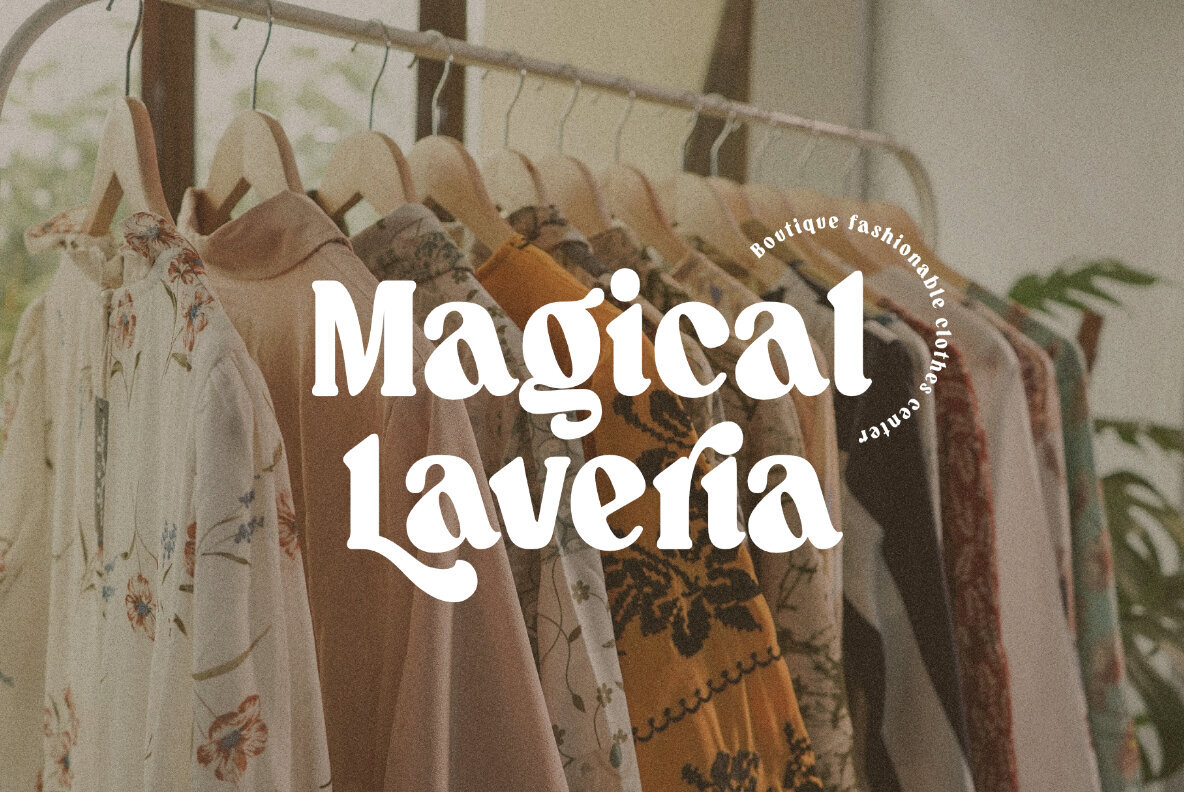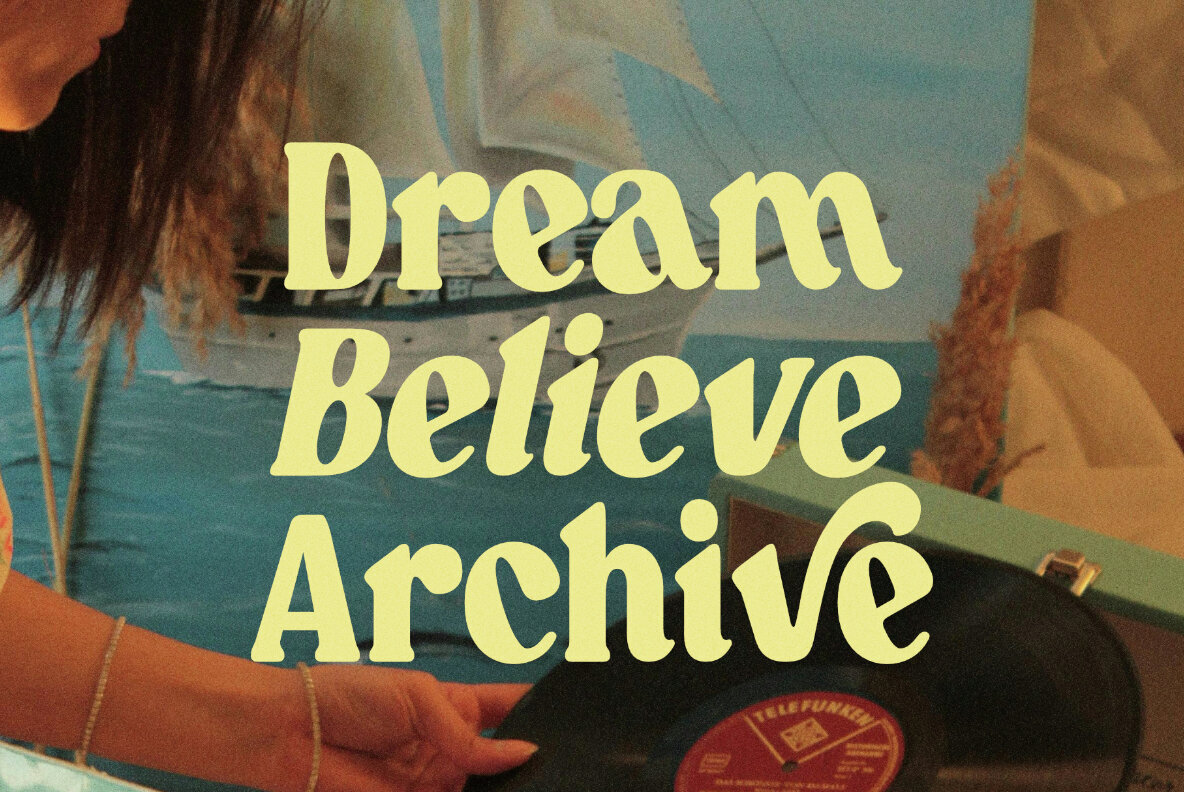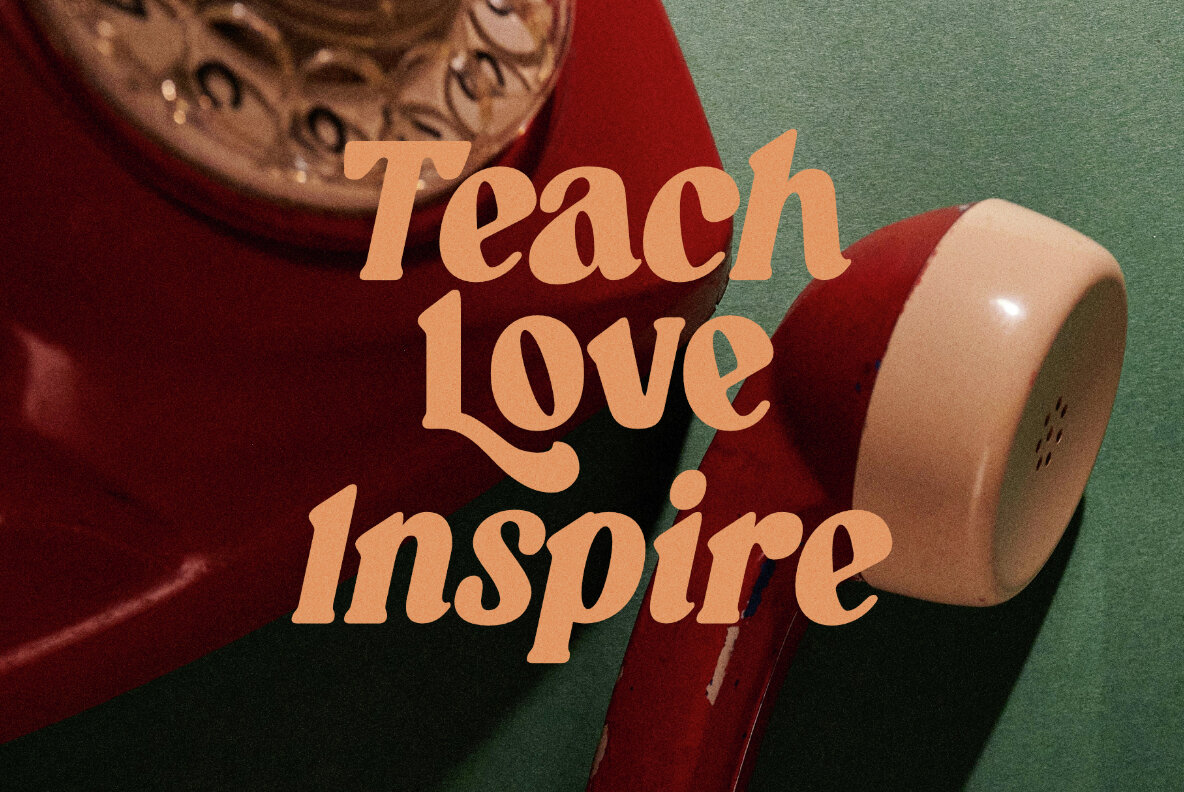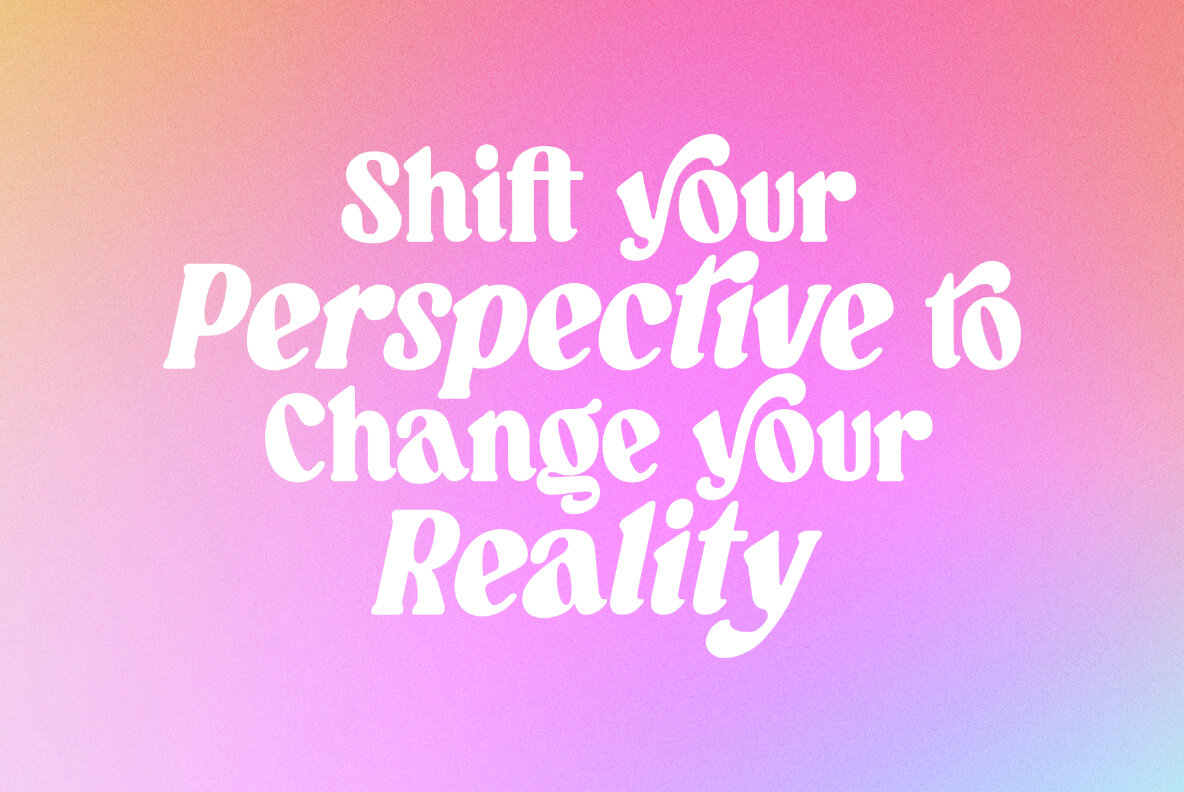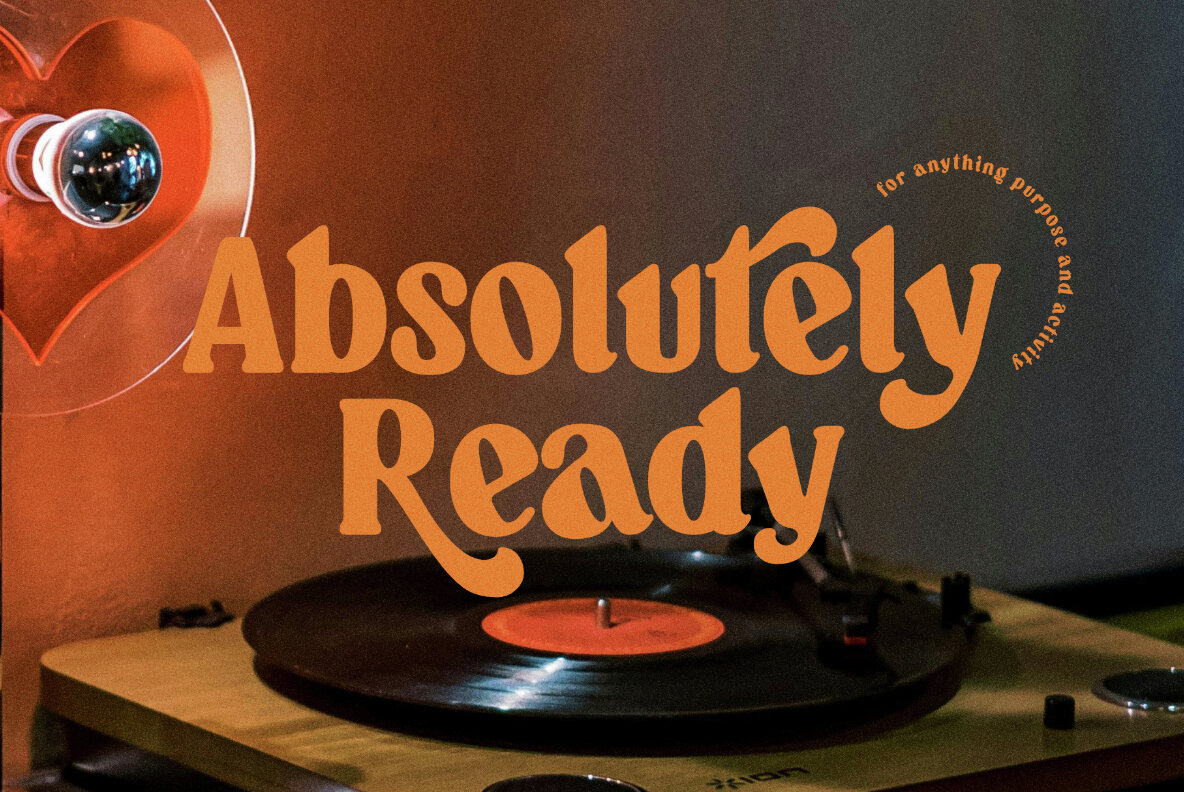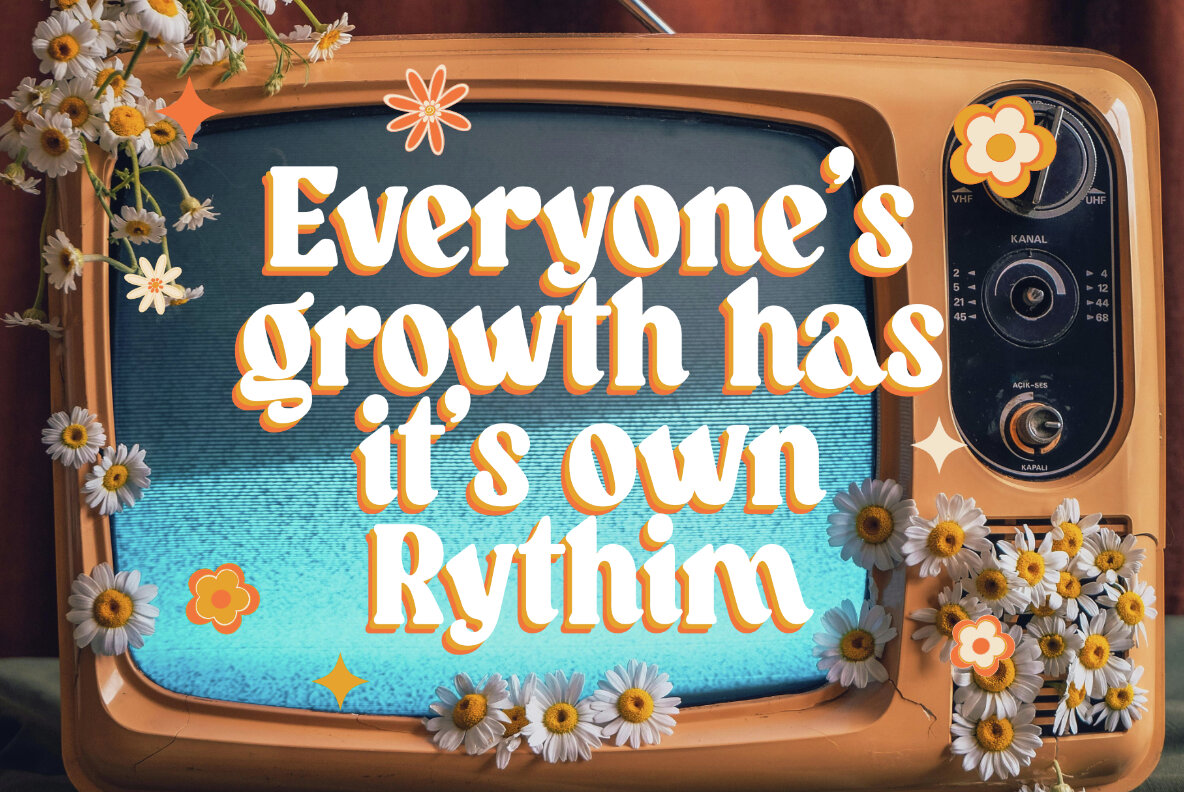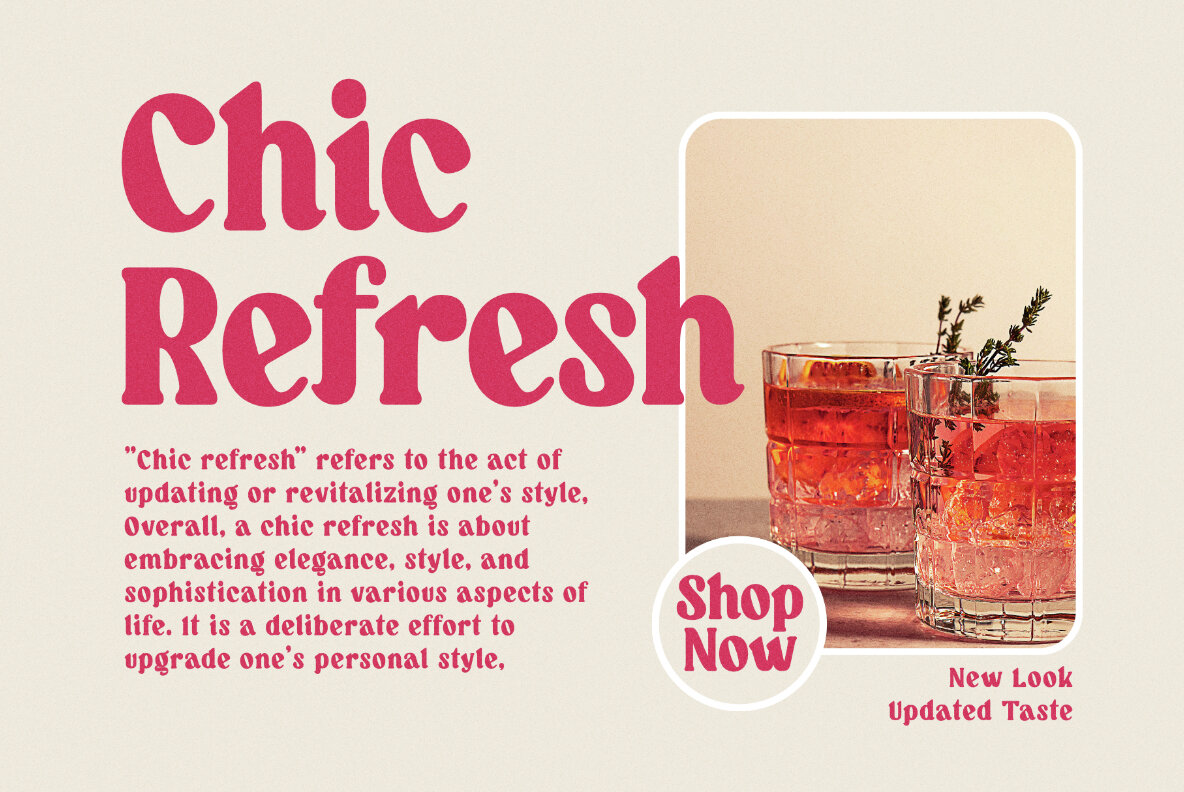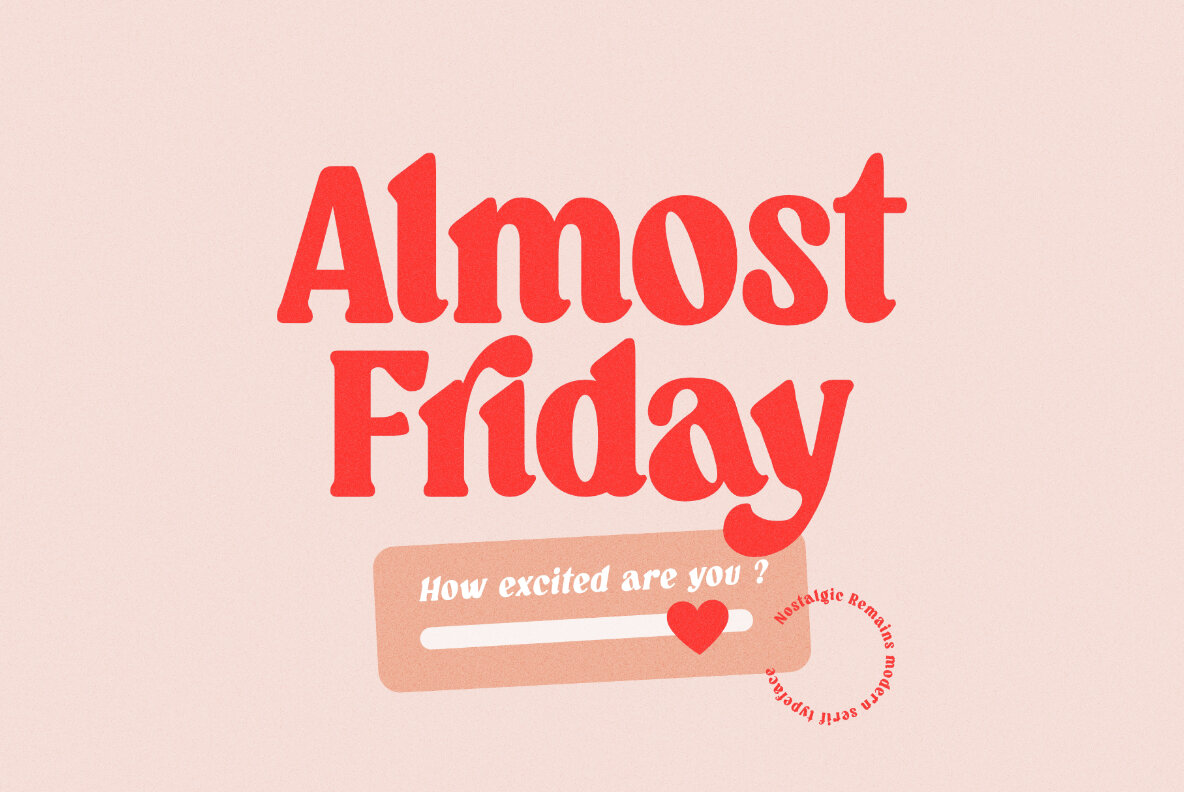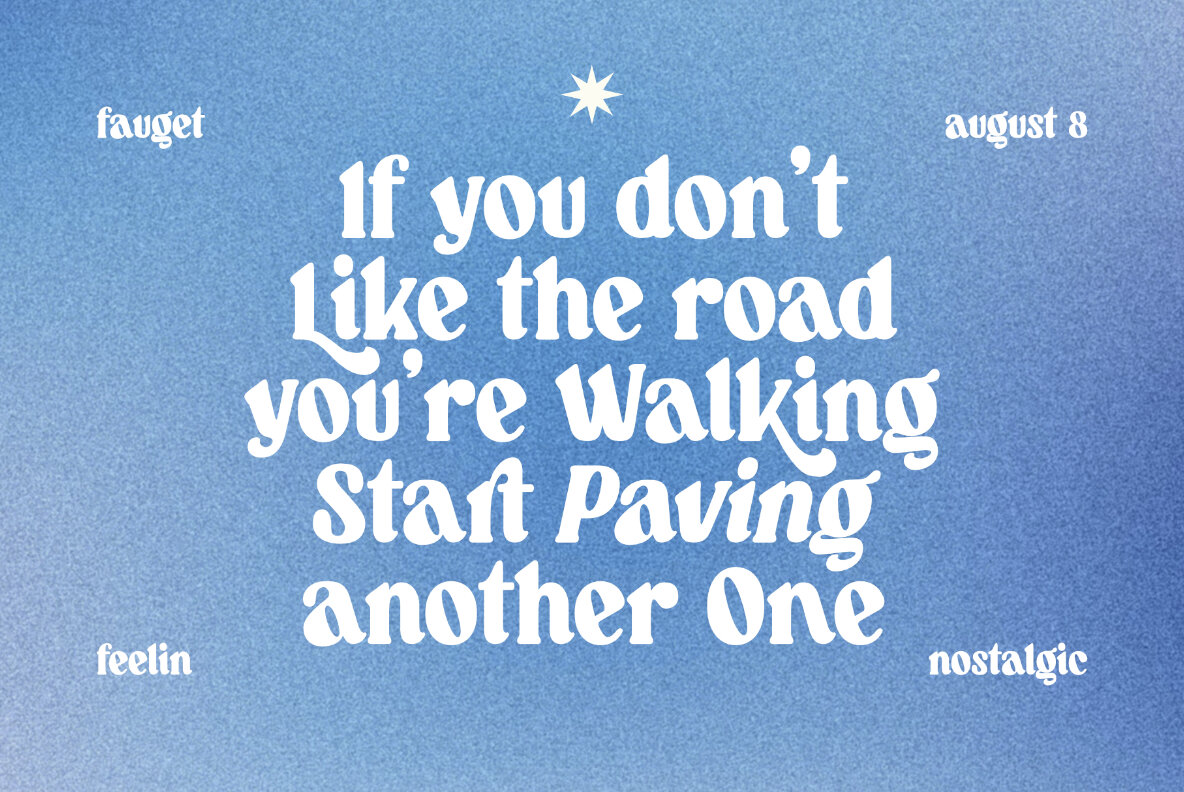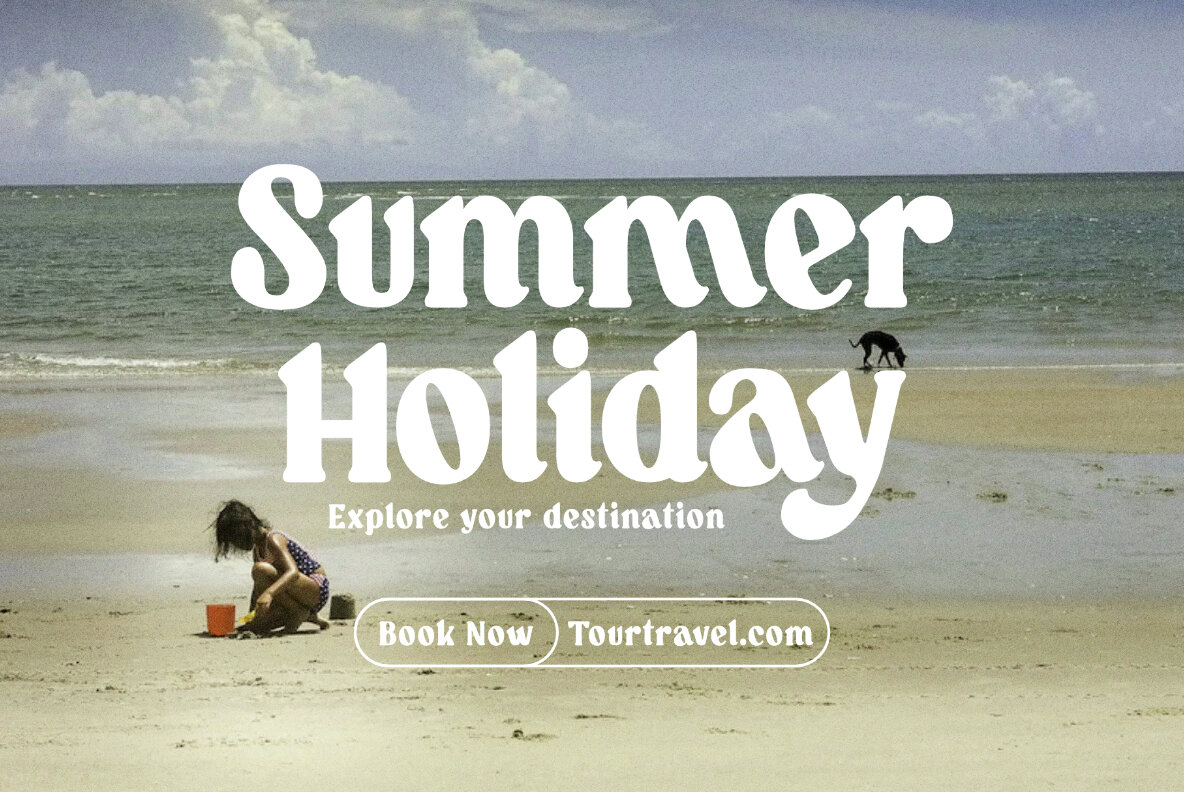
The Nostalgic Remain Font
The Nostalgic Remain is a chic modern and timeless serif font that evokes a sense of nostalgia and old-world charm. Its elegant and refined letterforms are perfect for creating designs that require a touch of sophistication and tradition. This font is ideal for vintage logos, book covers, editorial designs, and any project that needs a touch of old-school glamour. With its graceful curves and delicate serifs, Nostalgic Remain is a versatile font that can be used for both digital and print projects. Its timeless appeal makes it a great choice for designers who want to create a sense of heritage and history in their designs. Whether you’re designing for a fashion brand, a restaurant, or a publishing house, Nostalgic Remain is a font that will add a touch of class and elegance to your work.